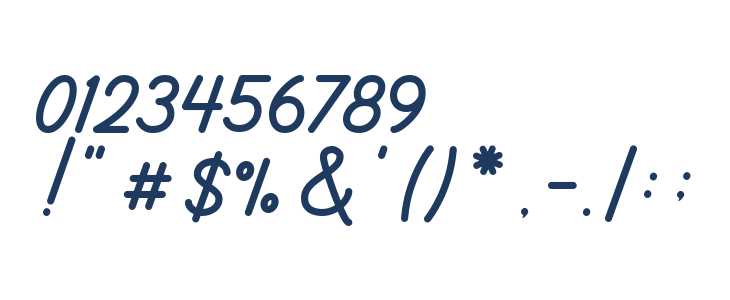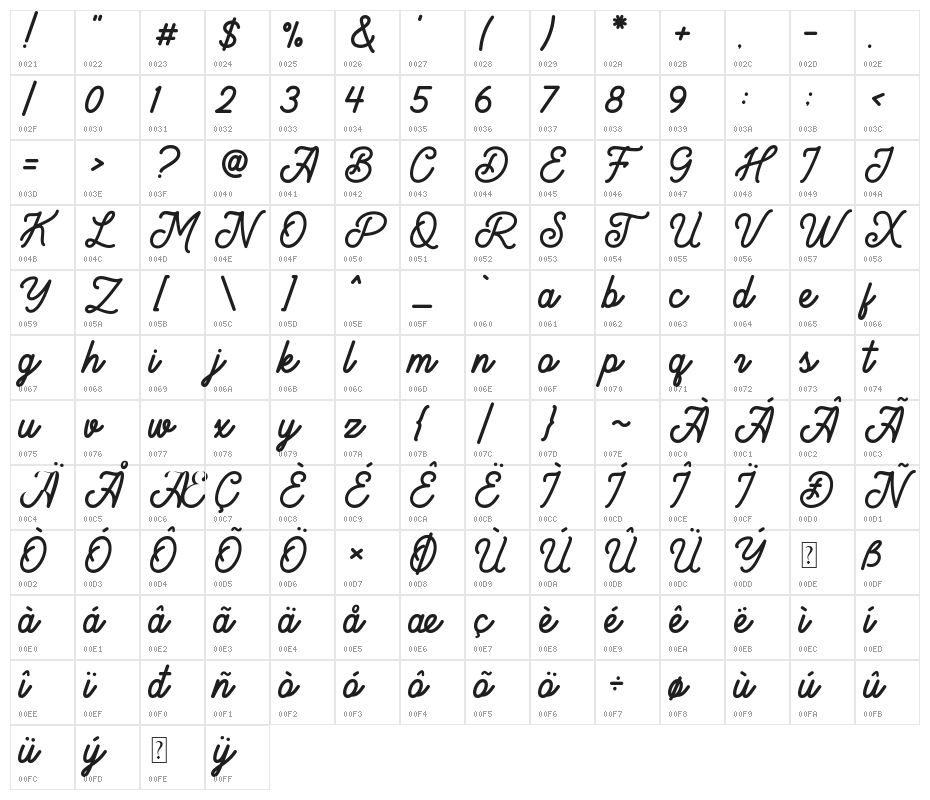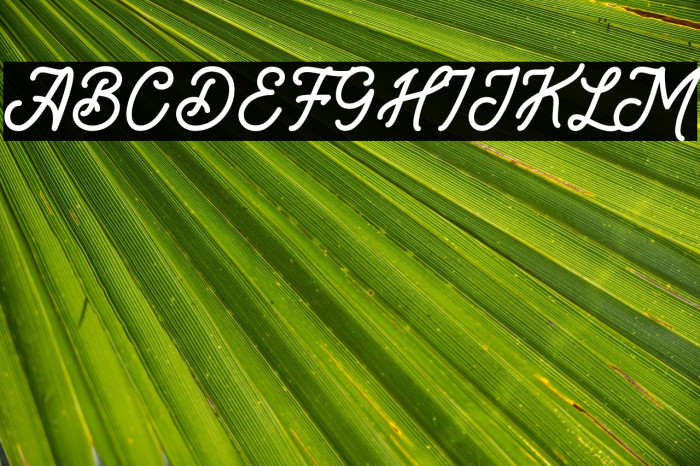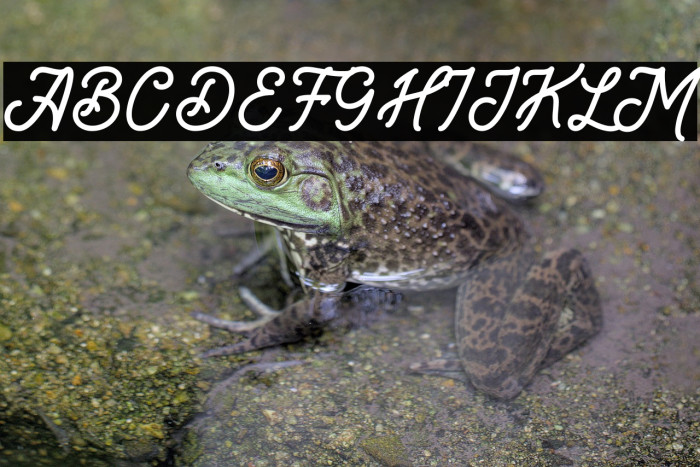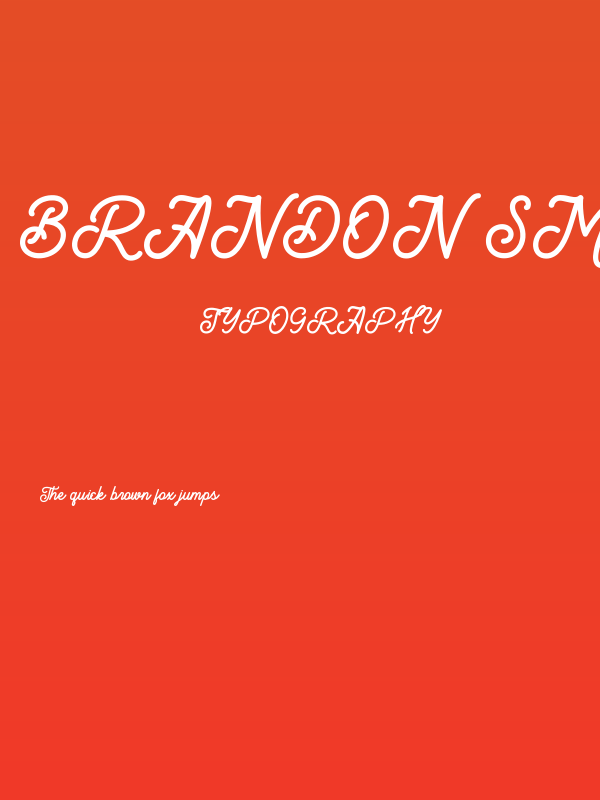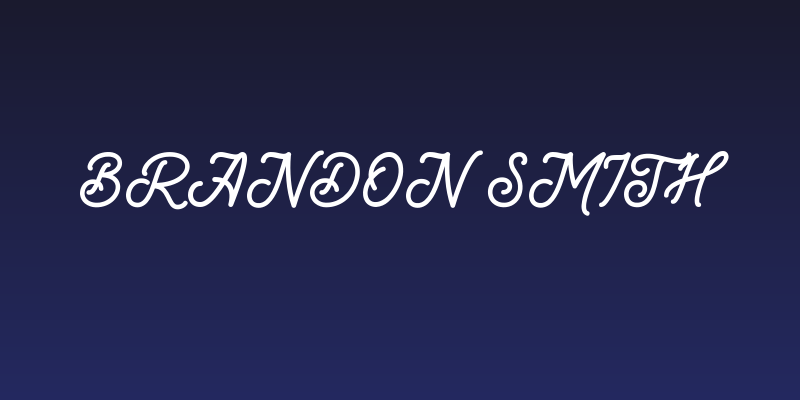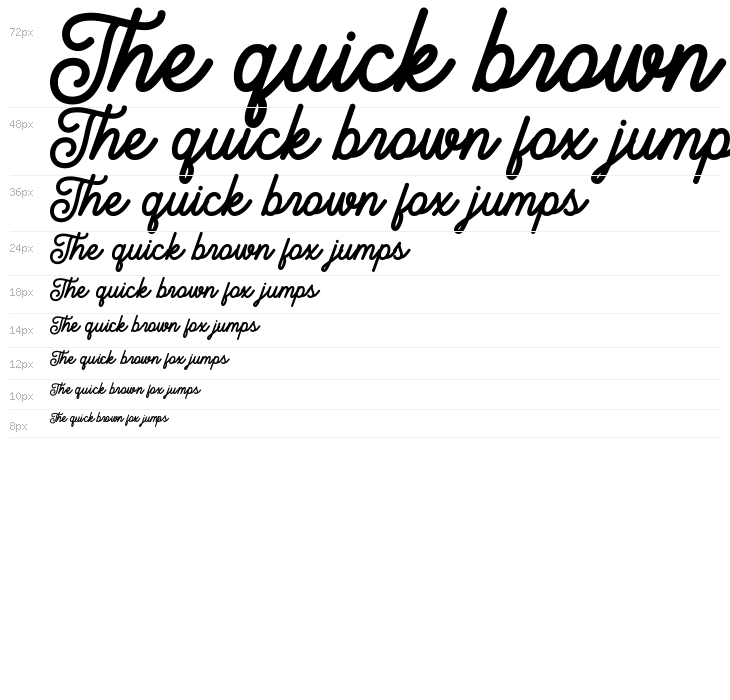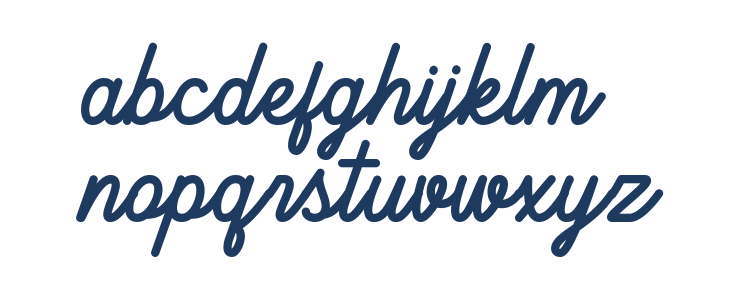
Brandon Smith Font
Brandon Smith Description
This font features a flowing, cursive style that exudes elegance and sophistication. The uppercase letters are gracefully connected, while the lowercase letters maintain a smooth, continuous flow. The numbers and special characters are designed to complement the overall script style, ensuring consistency throughout. The strokes are moderately thick, providing a bold presence without overwhelming the design. This font is ideal for projects that require a touch of class and refinement, such as wedding invitations, branding, and upscale packaging.
| Proposed Projects | Wedding invitations, branding, upscale packaging, greeting cards. |